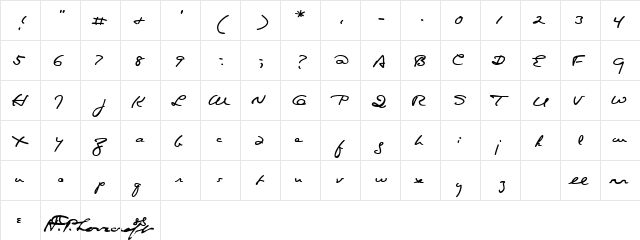
Lovecraft Cursive Regular
Design Context for Lovecraft Cursive Typeface
Lovecraft Cursive brings a calligraphic fluidity to the page — its connecting strokes and expressive curves give it an unmistakably human quality.
Font Pairing: Combine Lovecraft Cursive with a simple geometric sans for maximum contrast — the tension between flowing curves and clean structure is a classic typographic pairing.
Pro Tip: Pair Lovecraft Cursive with a clean sans-serif for supporting text. The contrast between fluid script and geometric structure creates an elegant typographic hierarchy.